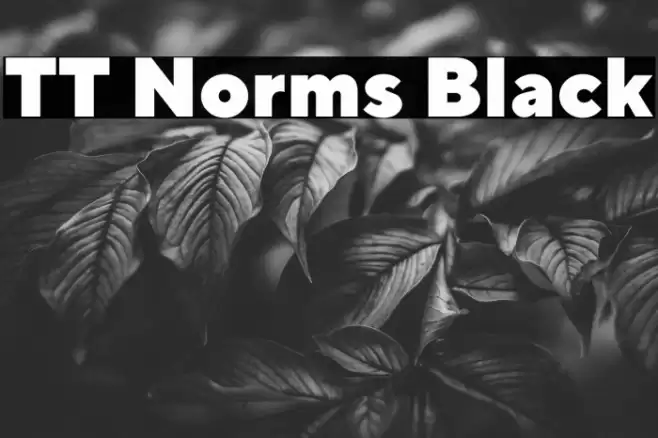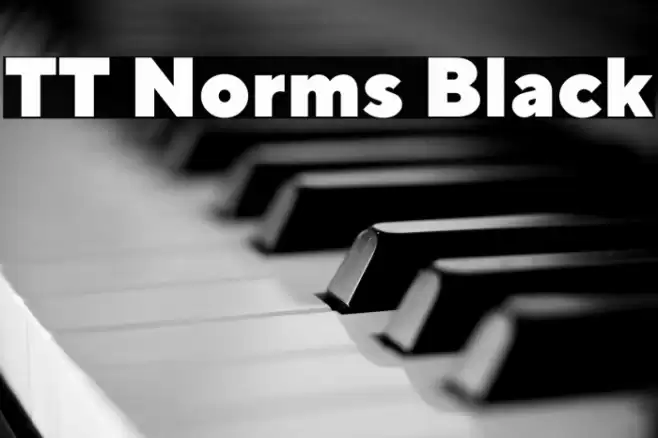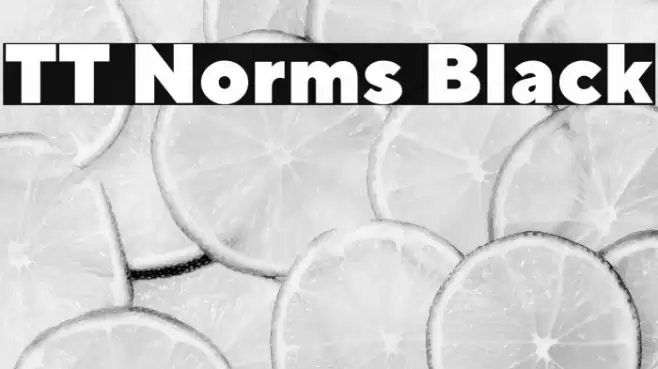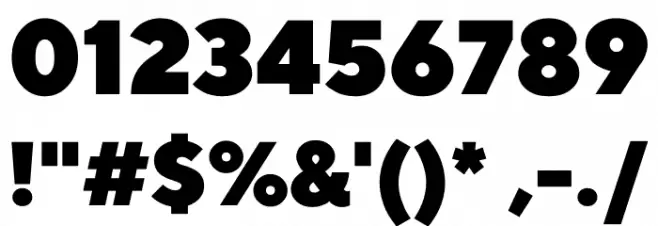
TT Norms Black Font
TT Norms Black Description
This typeface exhibits a bold and robust design, characterized by thick, uniform strokes that convey strength and modernity. The letters are sans-serif, providing a clean and straightforward appearance. The uppercase and lowercase letters maintain consistent proportions, ensuring readability and balance. The numerals are equally bold, matching the overall aesthetic of the alphabet. Special characters are designed with the same weight and style, ensuring cohesion across all text elements. This font's design is ideal for making a strong visual impact, suitable for various digital and print media.
A bold, modern sans-serif typeface with uniform strokes and strong visual impact from Serif fonts.
- Proposed Projects: Ideal for branding, headlines, posters, and digital media where a strong, modern presence is desired.